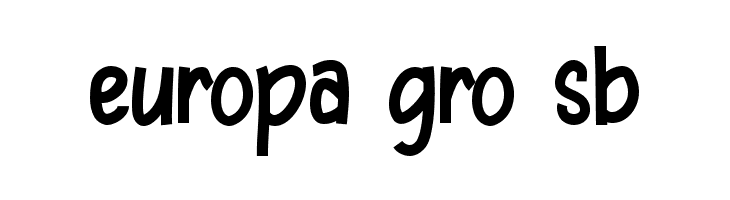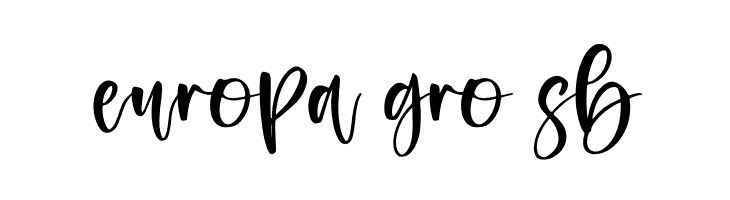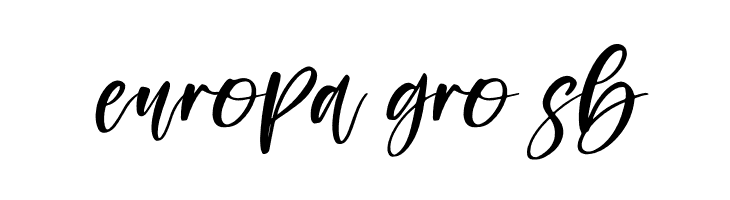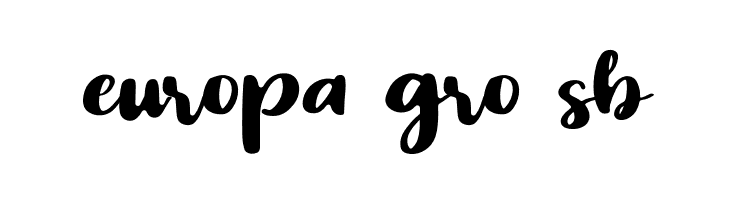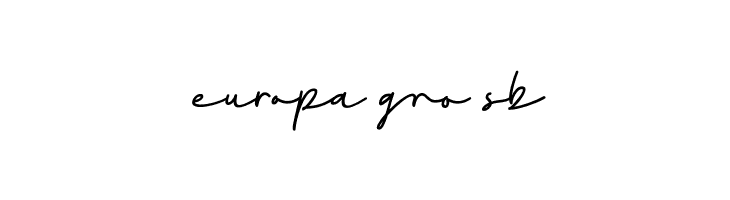
• Amigoste
A lively and expressive handwritten font with dynamic strokes and playful loops.
• Amigoste Italic
A dynamic, flowing script font with an elegant, handwritten style.
• Amika Blackletter Free Font
A bold, gothic blackletter font with intricate, angular designs.
• Amiko
A clean, modern sans-serif font with excellent readability and versatility.
• Amillea
An elegant, flowing script font with modern curves and delicate loops.
• AmilliaRocheteDemo
A modern, handwritten font with elegant, fluid strokes and dynamic contrast.
• Amillina
A graceful and elegant script font with fluid, connected strokes.
• Amilly Signature
A flowing, cursive font that mimics elegant handwriting.
• Amilo
A bold, handwritten script font with a playful and expressive style.
• Amina Reska
A playful, handwritten-style font with bold, dynamic characters.